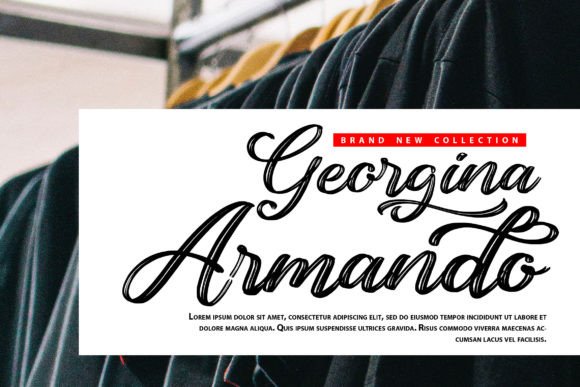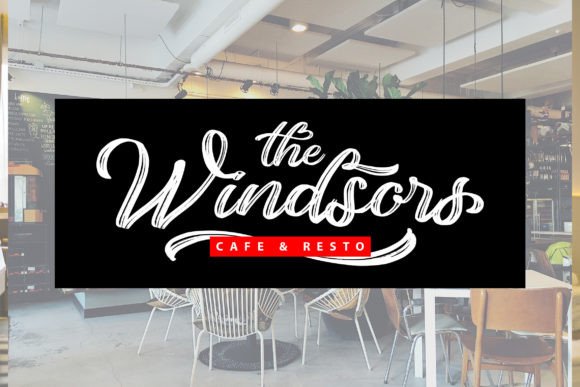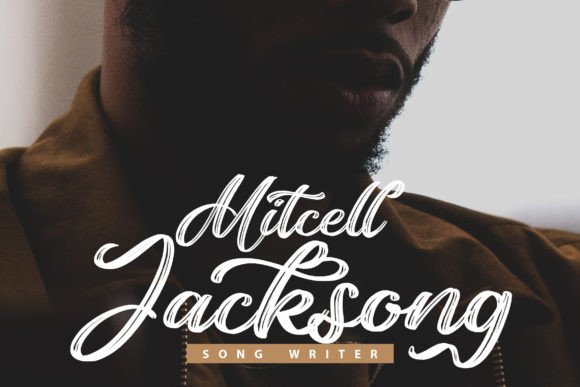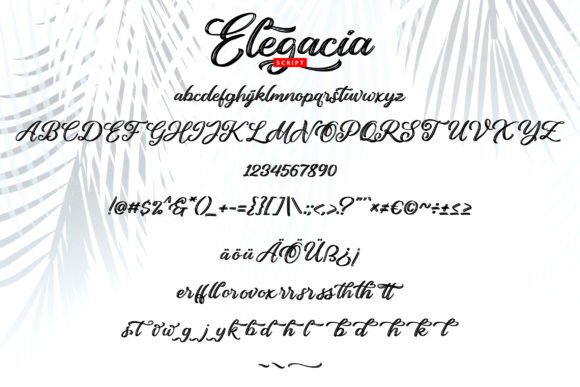
Elegacia Font: Elevate Your Designs with Style and Luxury
Are you tired of using the same old fonts in your designs? Do you want to add a touch of elegance and sophistication to your creations? Look no further than Elegacia Font. This stunning font is designed to bring a stylish and luxurious vibe to any project, making it an incredible asset to your font library.
The Unique Charm of Elegacia Font
At first glance, Elegacia Font may look like a dry brush font, but trust us, it’s so much more than that. Its unique charm lies in its ability to balance rustic and refined elements, creating a truly distinctive look that’s perfect for a wide range of design applications. Whether you’re working on a branding project, a wedding invitation, or a fashion magazine, Elegacia Font is sure to make a statement.
Key Features of Elegacia Font
- Stylish and Luxurious Vibe: Elegacia Font exudes style and luxury, making it perfect for high-end branding, advertising, and editorial projects.
- Versatility: This font is incredibly versatile and can be used for a wide range of design applications, from digital projects to print materials.
Why Designers and Crafters Love Elegacia Font
Elegacia Font has quickly become a favorite among designers and crafters, and for good reason. Its unique blend of rustic and refined elements makes it perfect for a wide range of design applications. Here are just a few reasons why designers and crafters love Elegacia Font:
- Instantly Elevates Designs: Elegacia Font has the power to instantly elevate any design, making it perfect for designers looking to add a touch of sophistication and style to their creations.
- Perfect for Branding and Advertising: With its luxurious vibe and stylish aesthetic, Elegacia Font is perfect for branding and advertising projects that require a high-end look and feel.
- Great for Editorial Projects: Elegacia Font is also perfect for editorial projects, such as fashion magazines, blogs, and newspapers, where style and sophistication are key.
Tips for Using Elegacia Font
To get the most out of Elegacia Font, here are a few tips to keep in mind:
- Experiment with Different Sizes: Elegacia Font looks great in a variety of sizes, from large headings to smaller body text.
- Play with Ligatures: With its PUA encoding, Elegacia Font comes with a range of ligatures and glyphs that can add an extra touch of style to your designs.
- Pair with Other Fonts: Elegacia Font pairs well with a range of other fonts, so don’t be afraid to experiment with different combinations to find the perfect look for your design.